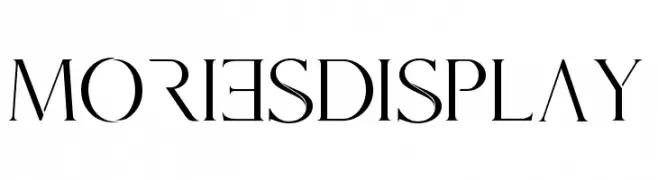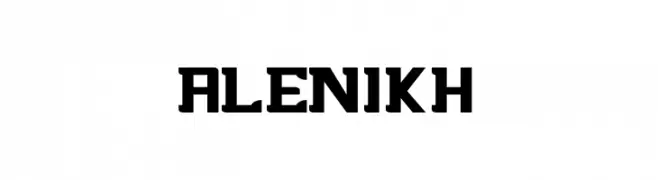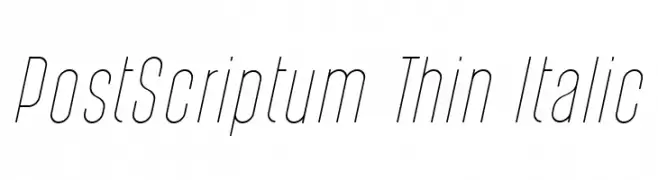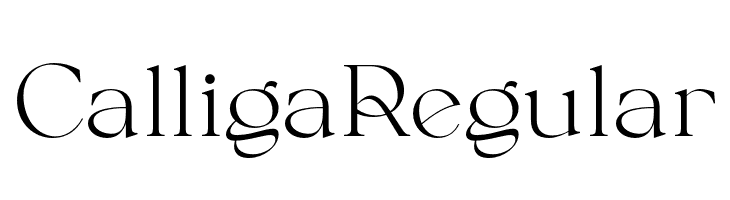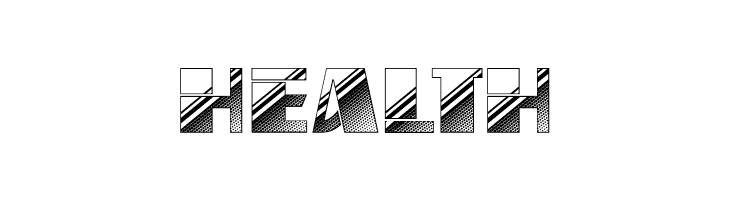
A high-contrast, elegant serif font with sharp serifs and modern style.
A bold, geometric font with a modern and impactful style.
A playful and elegant cursive font with dynamic stroke variations.
A playful and elegant script font with bold, flowing uppercase and smooth, handwritten lowercase letters.
A thin, italicized font with a sleek and elegant design.
An elegant script font with flowing, ornate characters and intricate loops.
A bold, playful font with a hand-drawn, whimsical style.
A clean, modern font with uniform stroke width and excellent readability.
A modern, thin, and elegant font with geometric and minimalistic design.
A playful, handwritten font with a casual and friendly vibe.